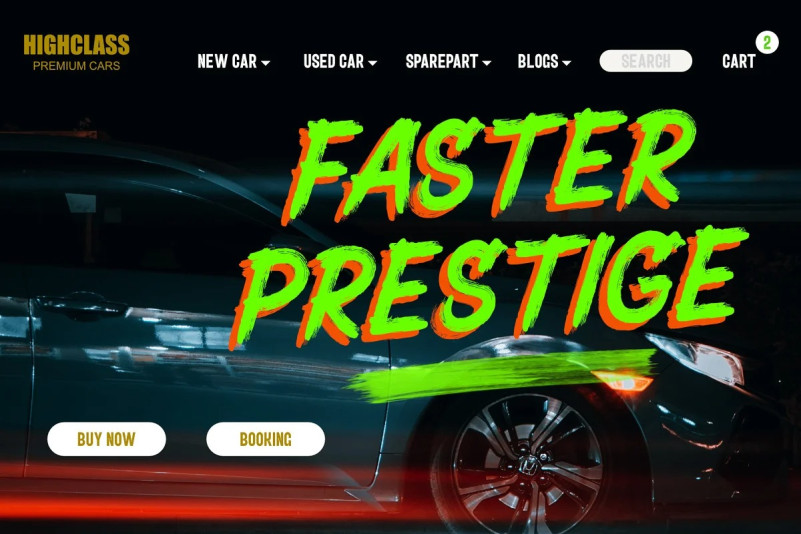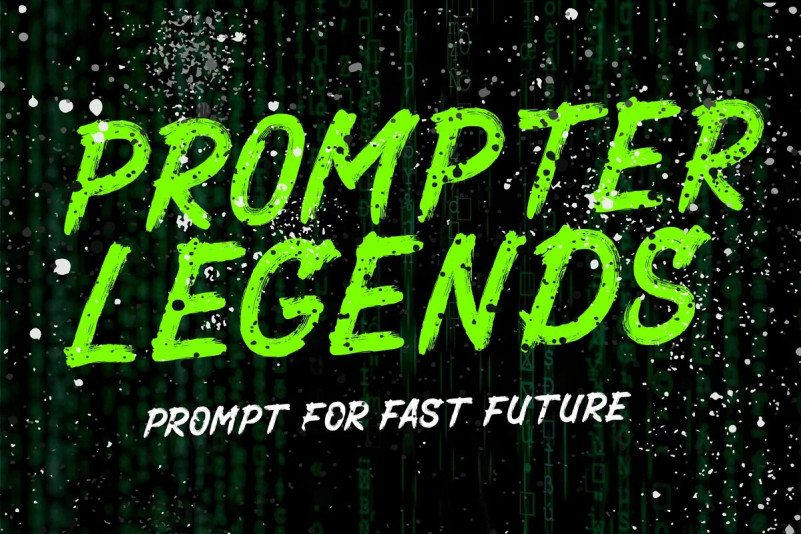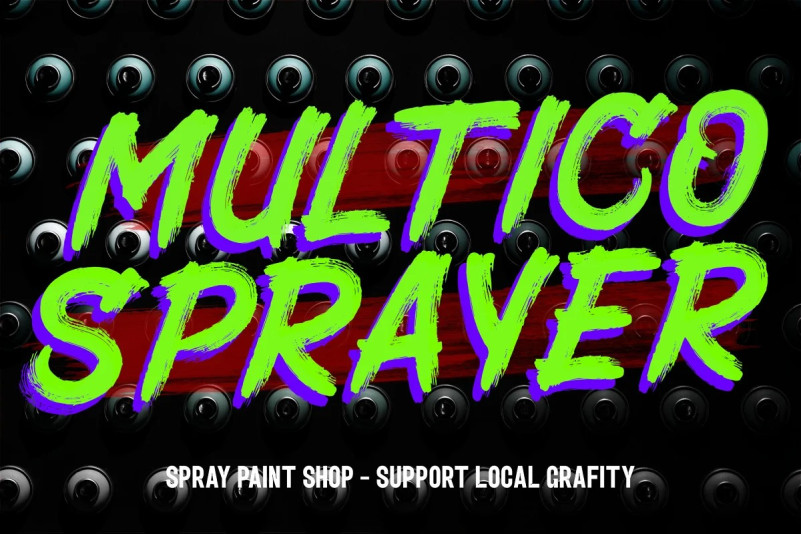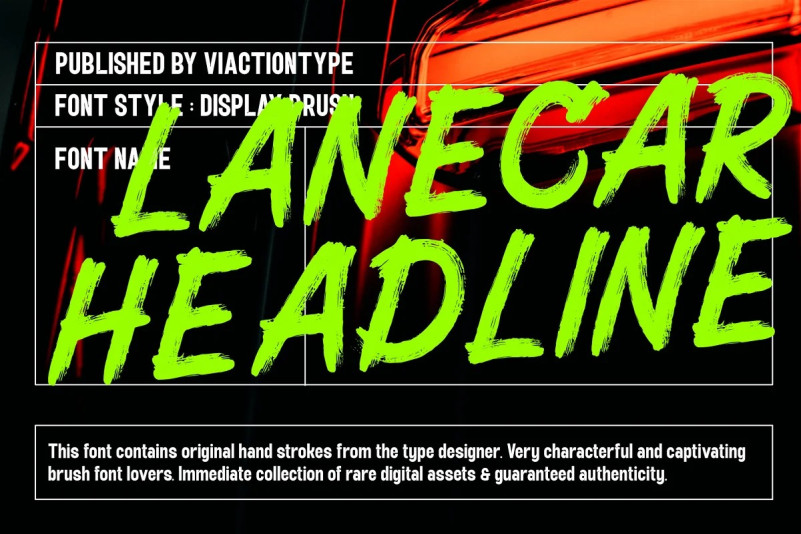
Lanecar Headline Brush Font is authentic hand brush imperfections. Very thick with brush strokes that are still visible so that it adds a rough impression. Perfect for display purposes and headlines. Lanecar Headline is the great choice for watermark on photography, logo design, quotes, album cover, magazine,tshirt and many other design project.